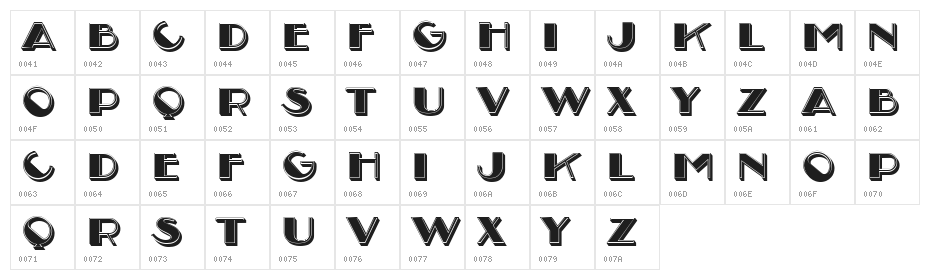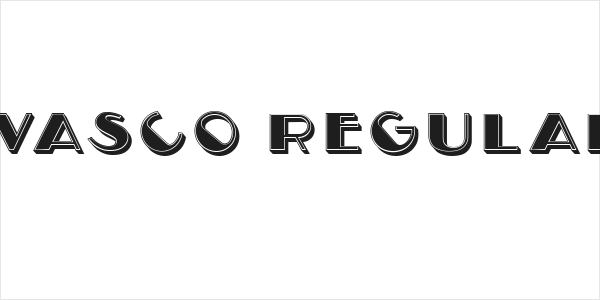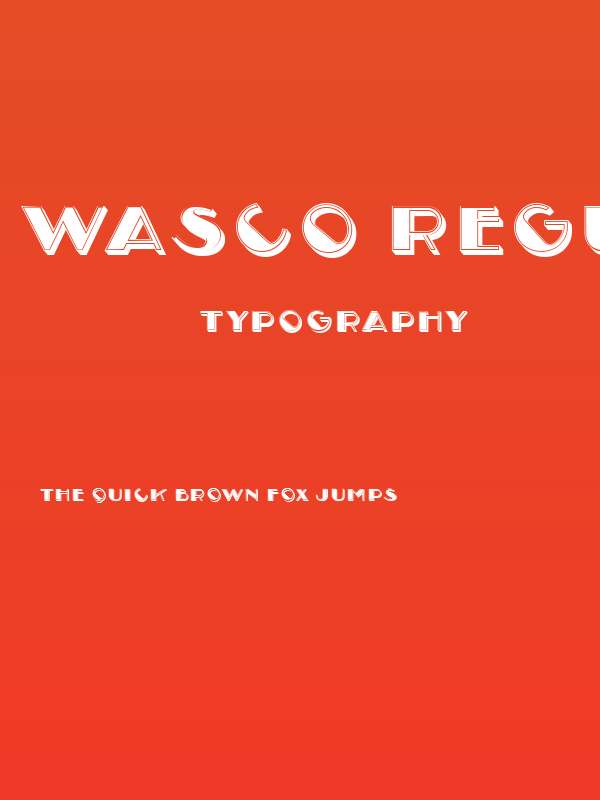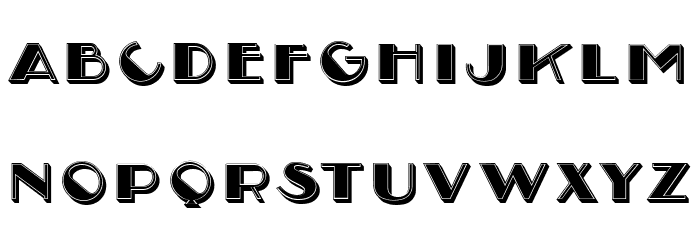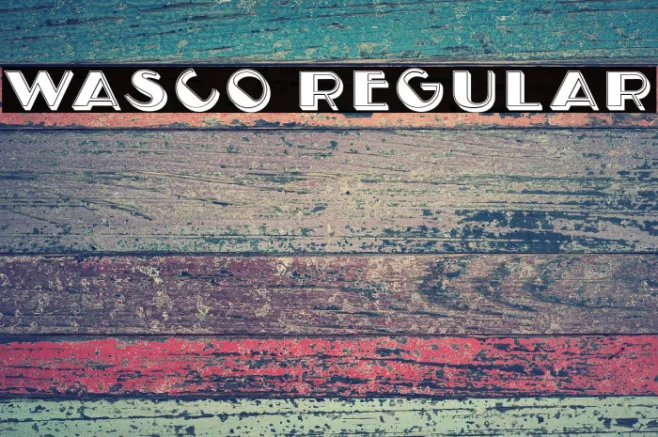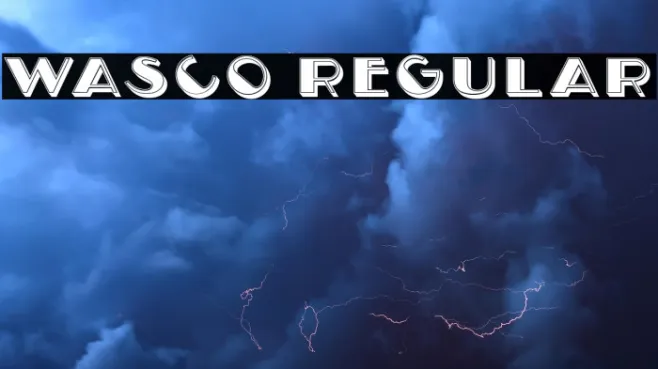
Wasco Regular Font
Wasco Regular Description
This font features a bold and striking design with a unique blend of geometric and decorative elements. The characters are primarily uppercase, showcasing a modern and artistic style with a three-dimensional effect. The use of shadowing and layering gives the letters a sense of depth and dynamism. The font is characterized by its clean lines and sharp angles, making it visually appealing and suitable for attention-grabbing designs. The overall appearance is both contemporary and sophisticated, ideal for projects that require a strong visual impact.
| Proposed Projects | Ideal for branding, posters, headlines, and any design requiring a bold visual statement. |